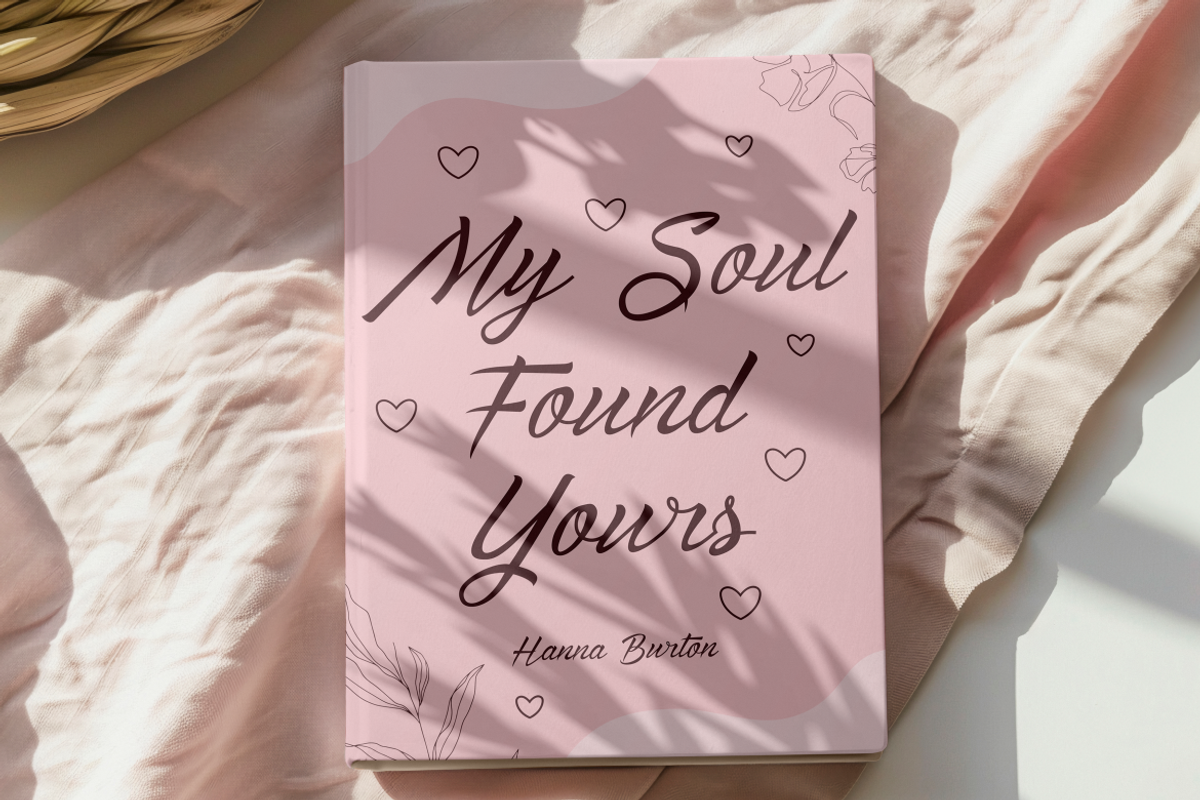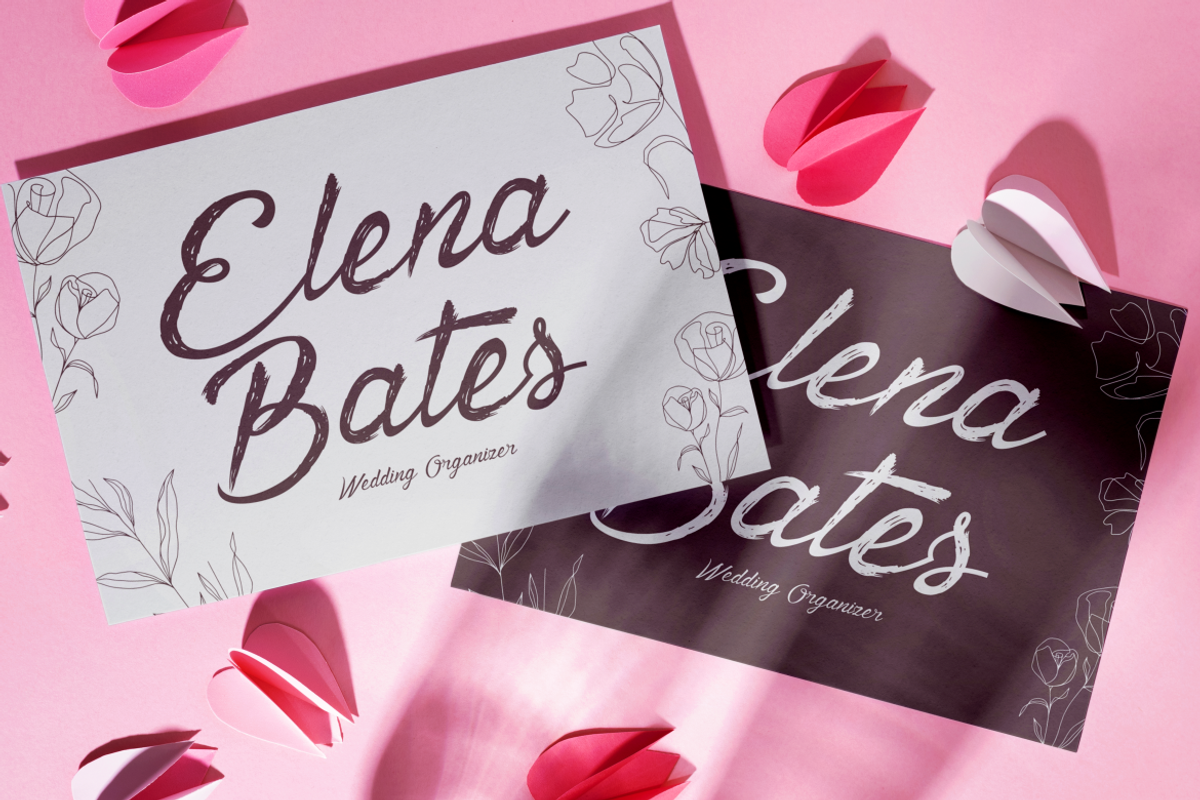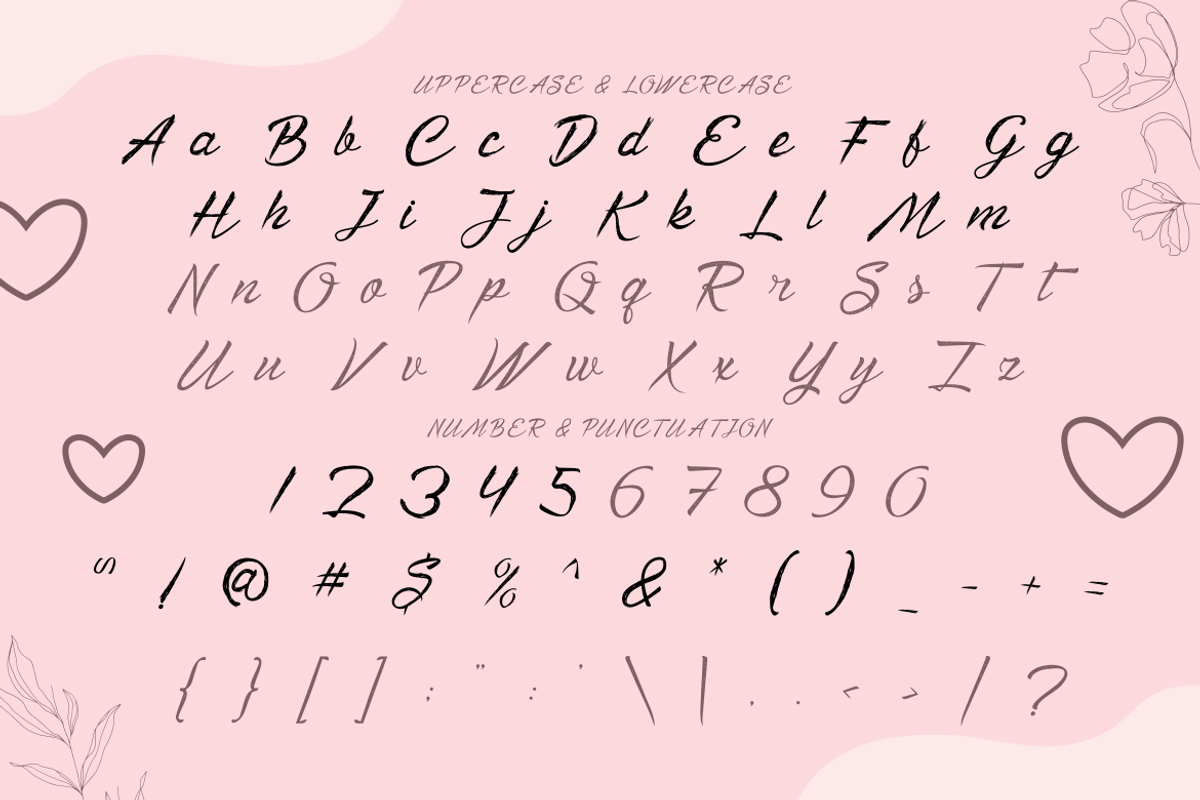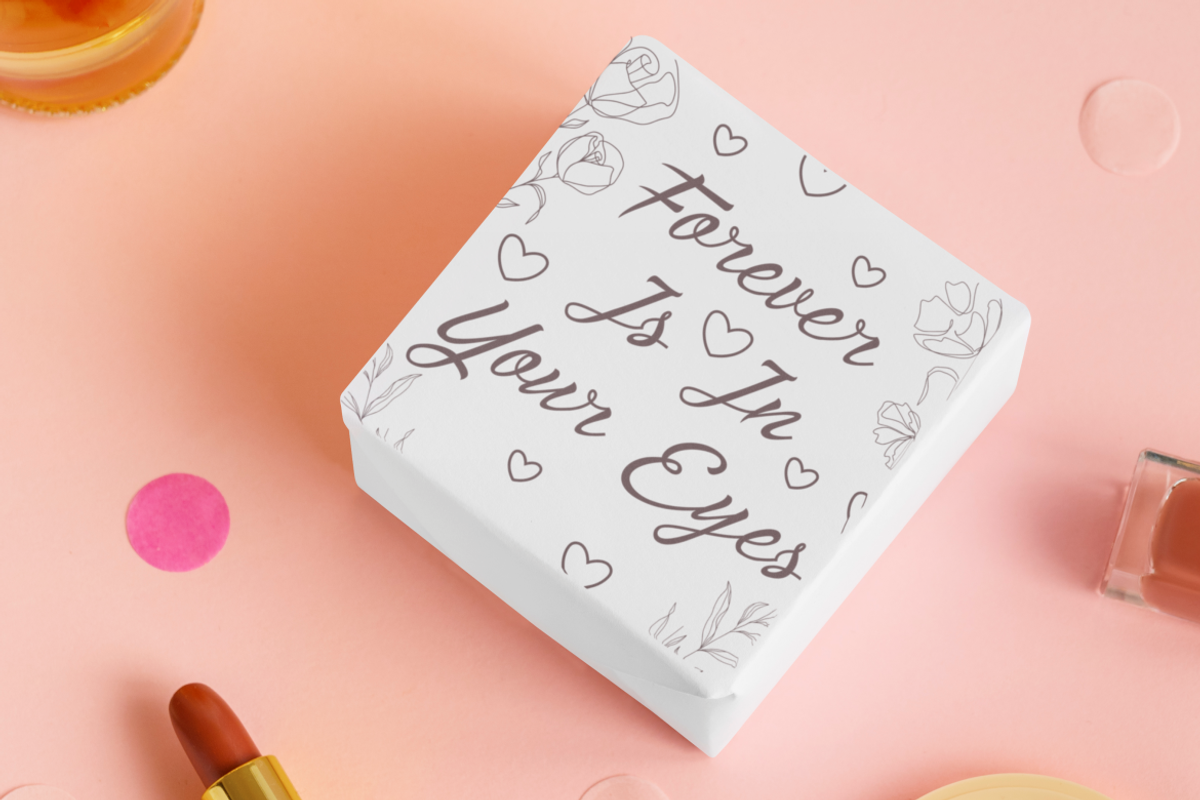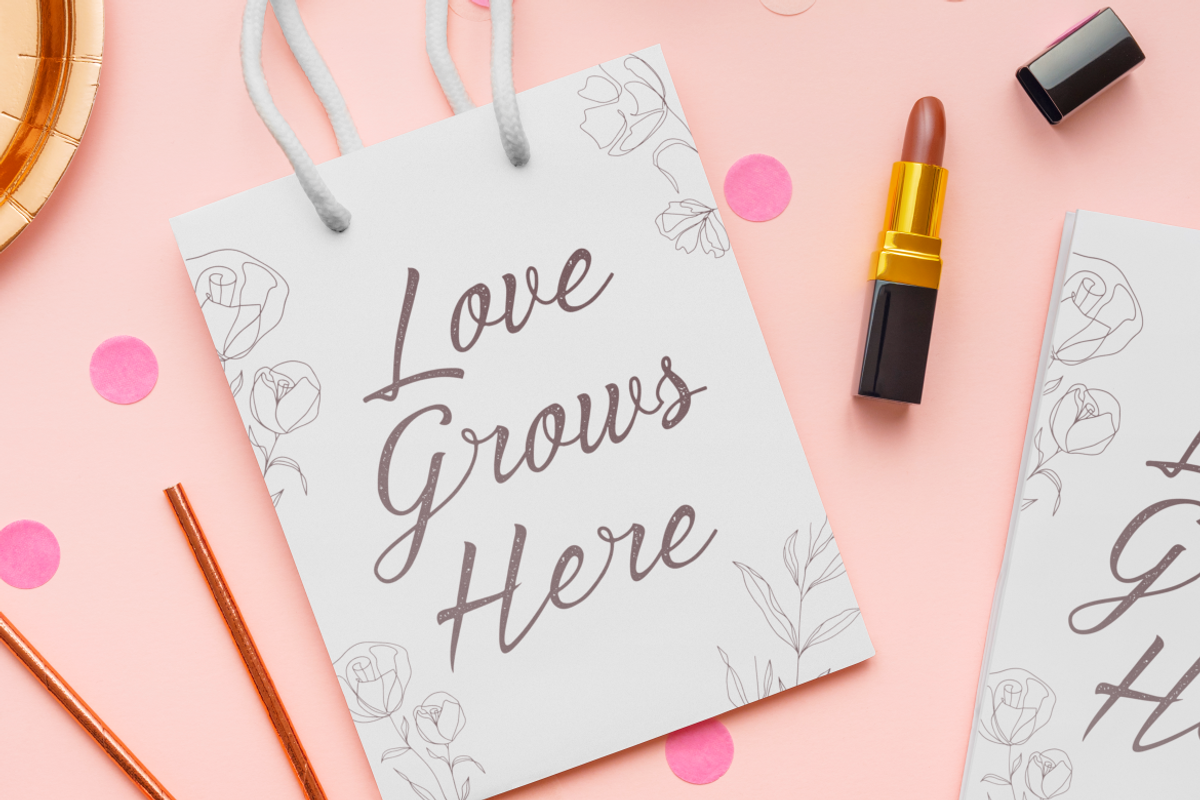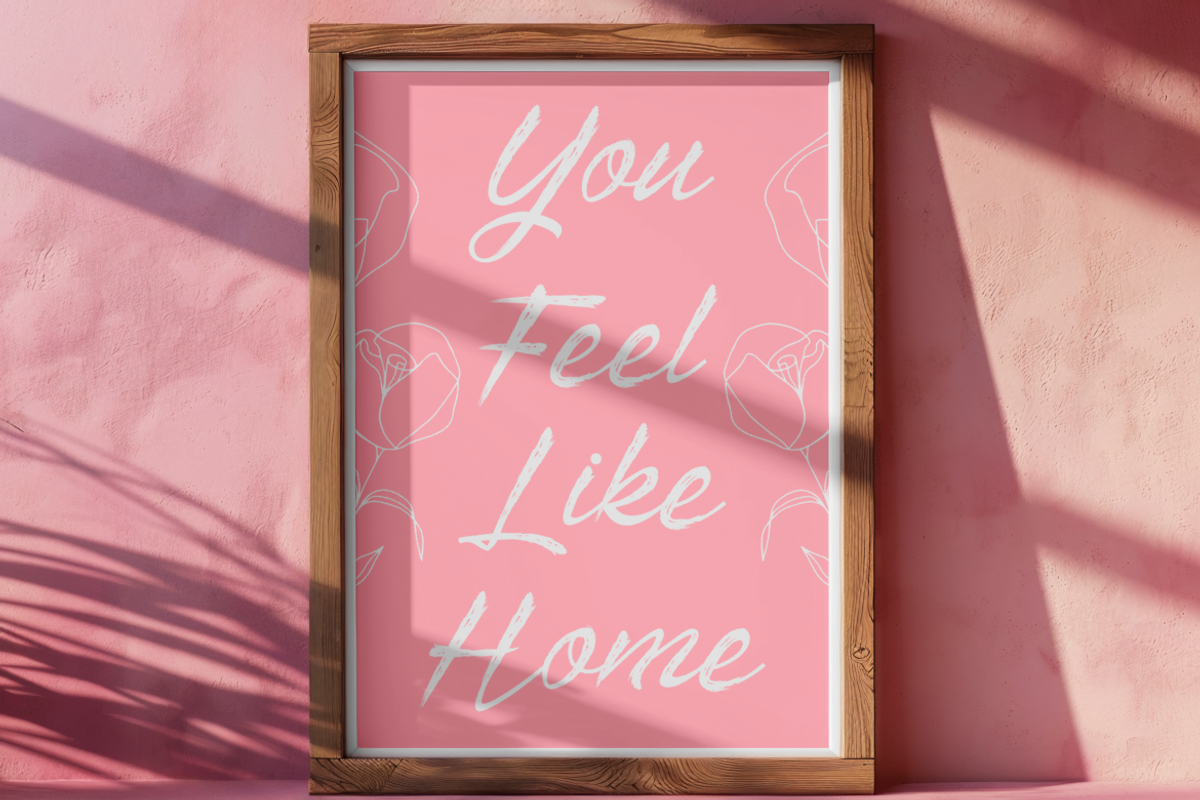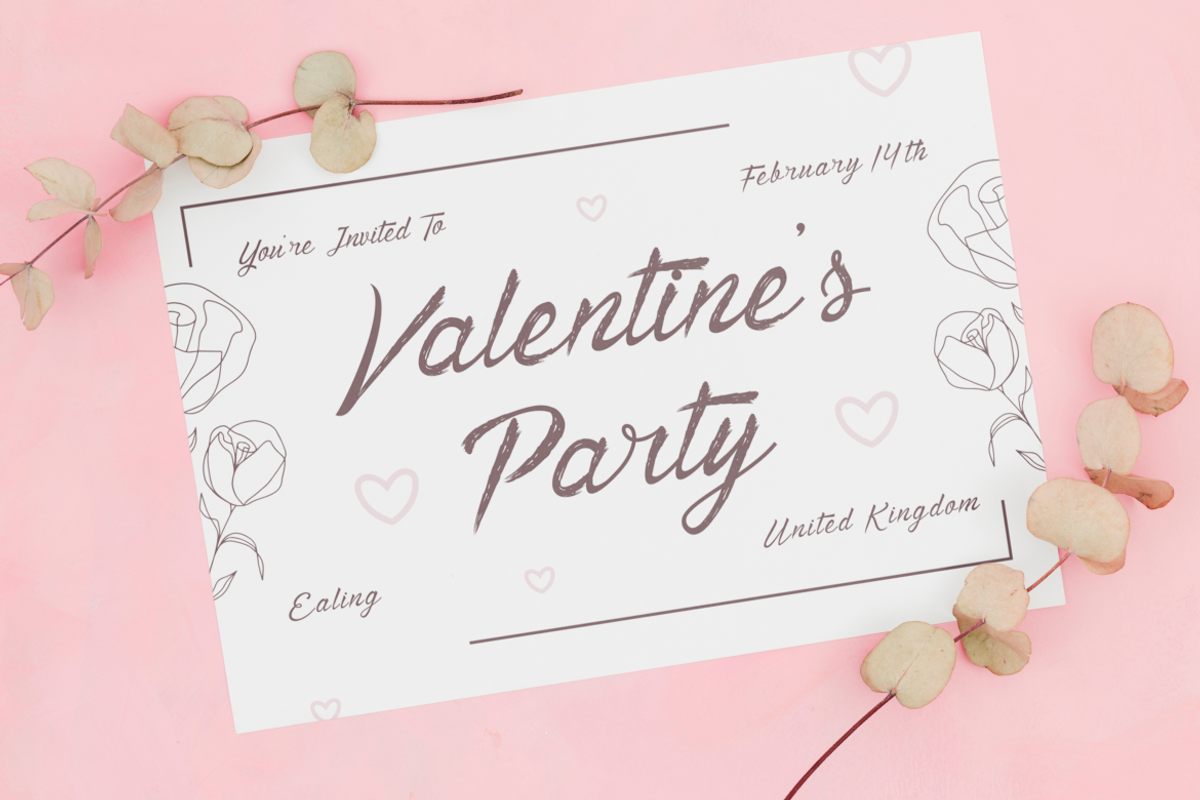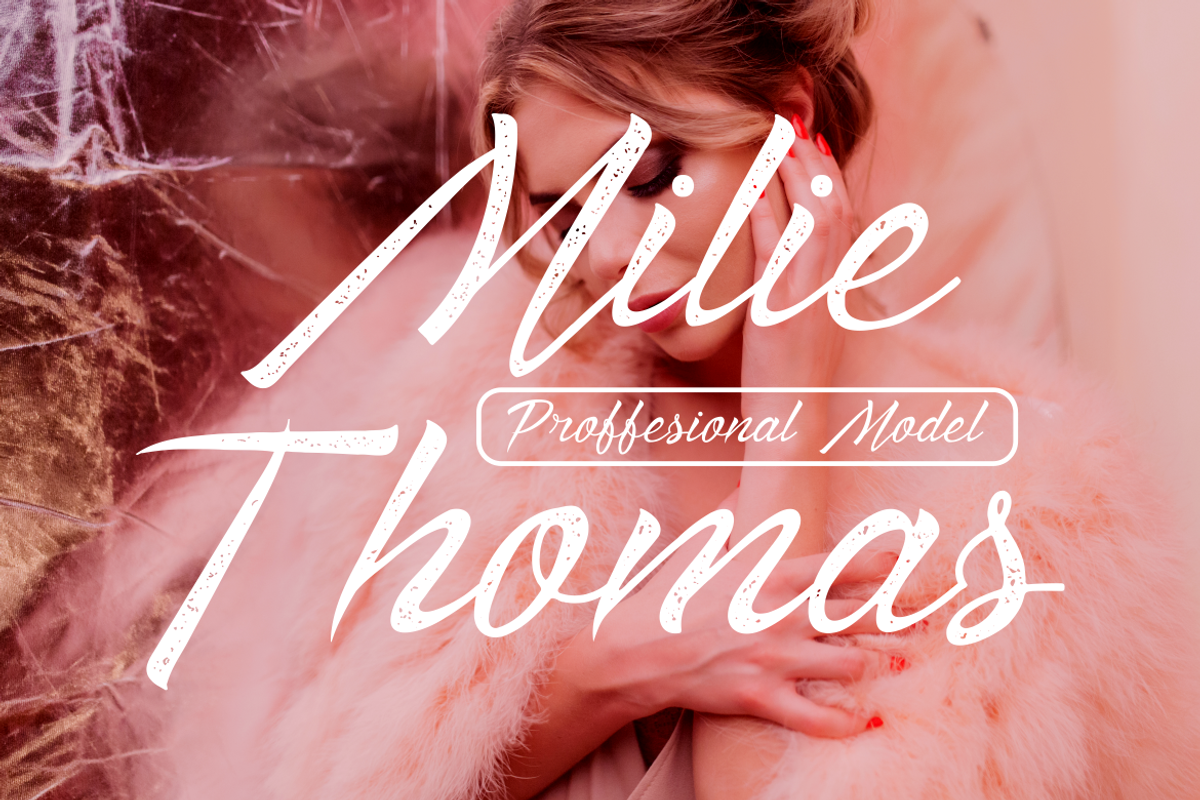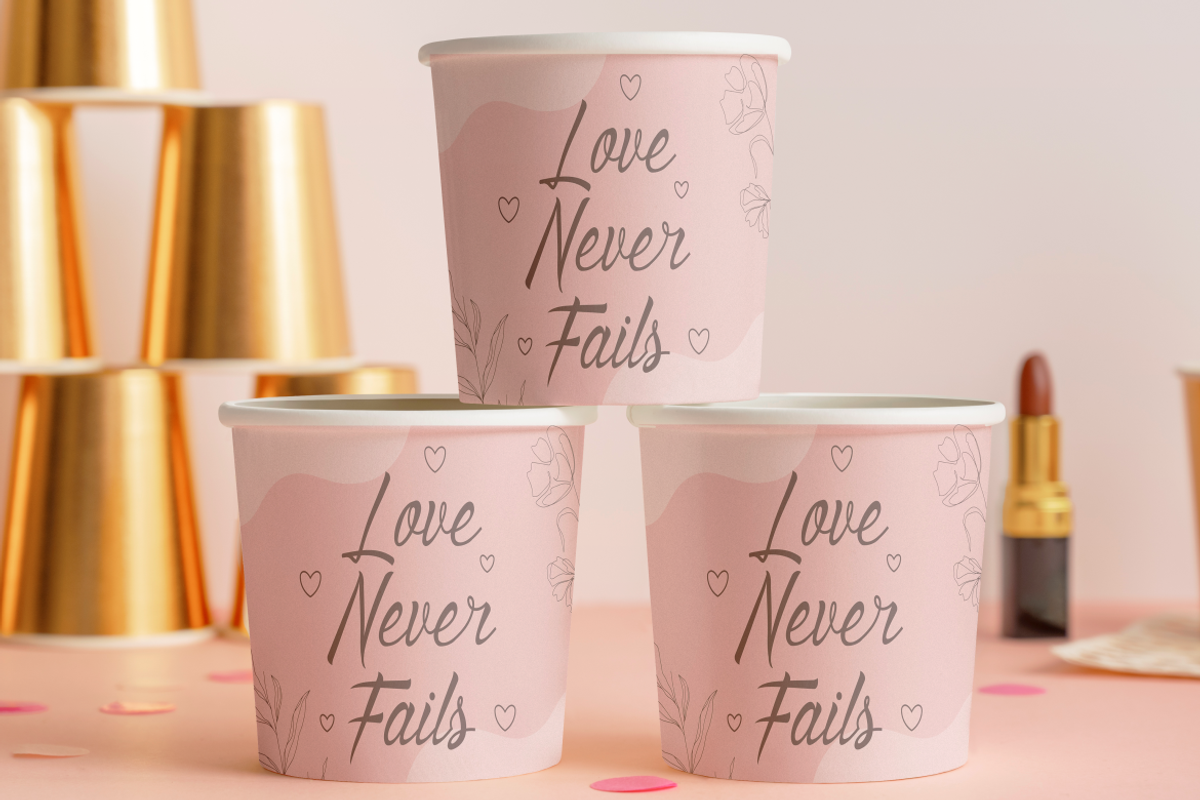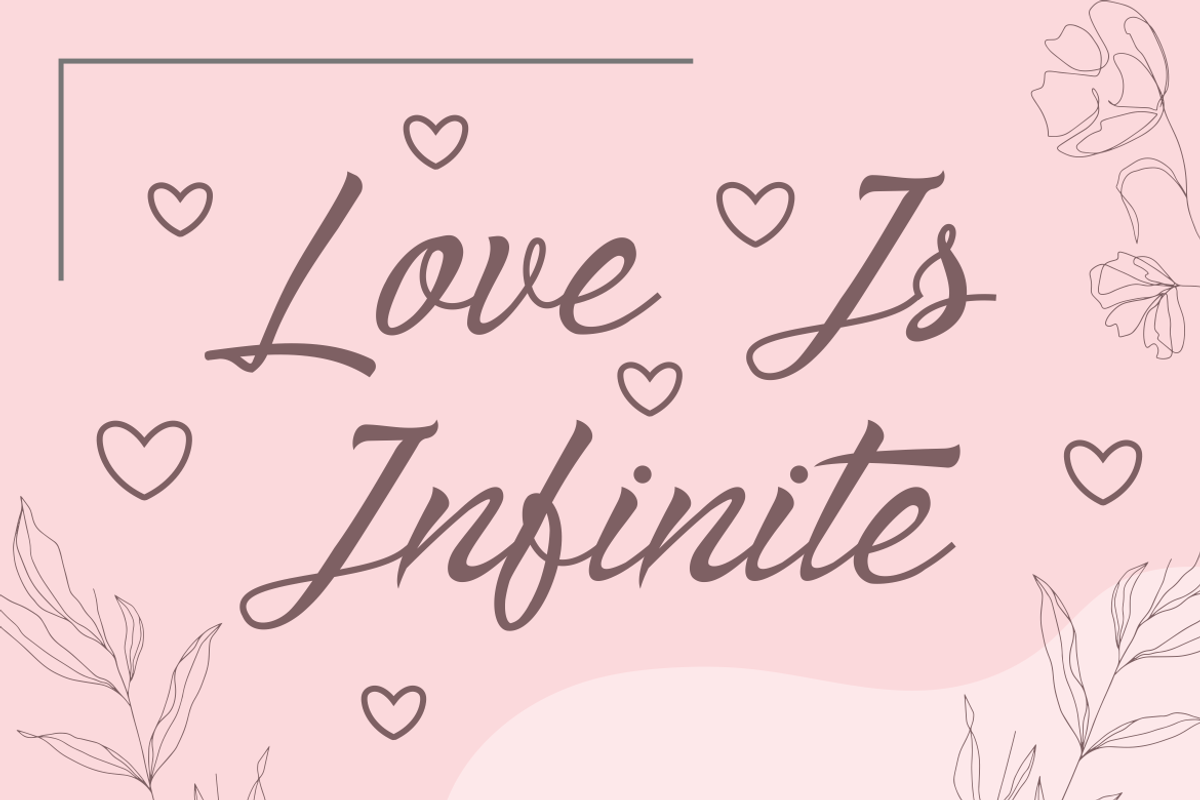
Beloved Grace - Romantic Script Font
Introducing Beloved Grace - Romantic Script Font, a beautifully crafted typeface that embodies romance and elegance. This script font features a natural handwritten style with smooth curves and subtle texture details, making it perfect for adding a heartfelt touch to any design. The soft, flowing lines exude charm, while the slightly distressed texture gives it a unique and personal feel. Ideal for projects that require a romantic or delicate aesthetic, Beloved Grace will effortlessly elevate wedding invitations, love letters, branding designs, or any Valentine’s Day-themed creations.
The design is complemented by a gentle pink background, symbolizing romance and warmth, with delicate floral illustrations adding a feminine and elegant touch. This harmonious combination enhances the font's versatility, making it suitable for logos, packaging, posters, greeting cards, and more. Whether you're creating a dreamy design for personal use or a professional project, Beloved Grace ensures a timeless and graceful impression.